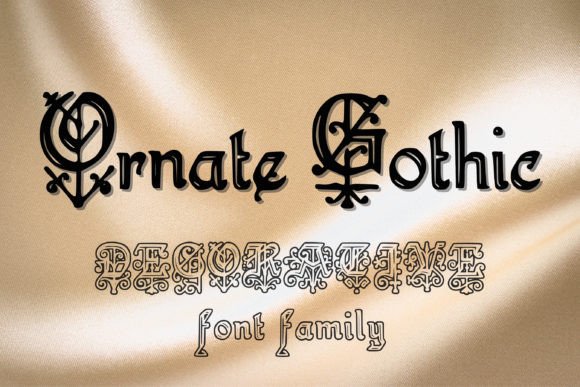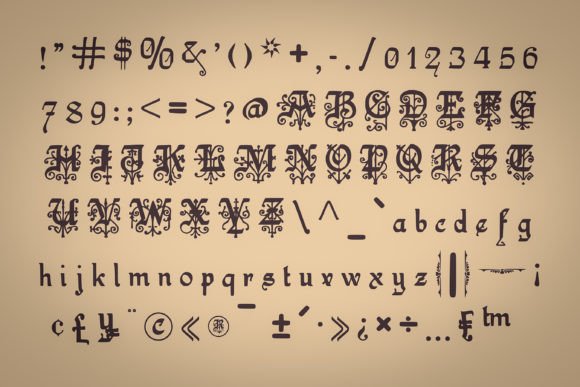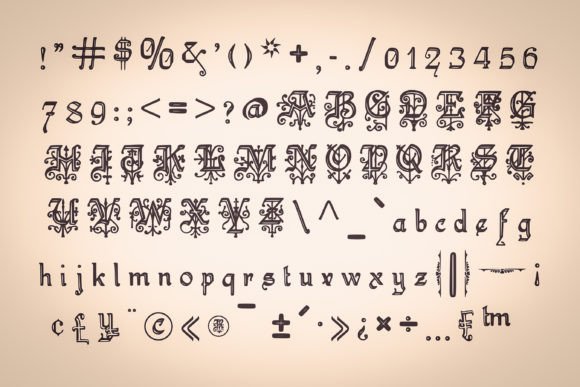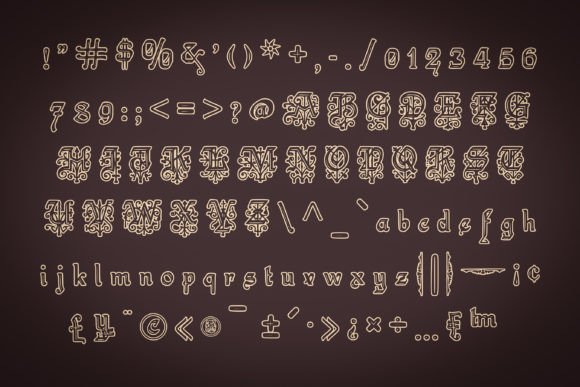
Ornate Gothic Font
About the Ornate Gothic Font
Unleash your creativity with Ornate Gothic Font, a versatile font perfect for a wide range of applications. Ornate Gothic is a splendid, antique blackletter font that will impress with its stylish features. Use it for product packaging, branding, or other projects that need bold and daring typography!
Ornate Gothic’s strong vertical strokes and intricate details make it ideal for headlines, short impactful statements, and logos where a bold, authoritative presence is desired. It excels in branding for luxury goods, high-end products, or projects with a historical or gothic aesthetic. However, its highly decorative nature makes it unsuitable for body text or UI elements; readability suffers in smaller sizes or extended passages.
Consider pairing Ornate Gothic with a clean, geometric sans-serif like Futura or a more modern, neutral font like Lato for contrast and improved legibility in supporting text. For a more traditional feel, a classic serif such as Garamond can create a sophisticated balance. Avoid pairing it with other highly decorative or ornate fonts as this will create visual clutter.
Its core personality is bold and dramatic, conveying a sense of history, luxury, and perhaps even a touch of mystery. This makes it an excellent choice for projects aiming for a sophisticated yet powerful visual impact.
Ornate Gothic Font Usage Examples
Ornate Gothic Font Example